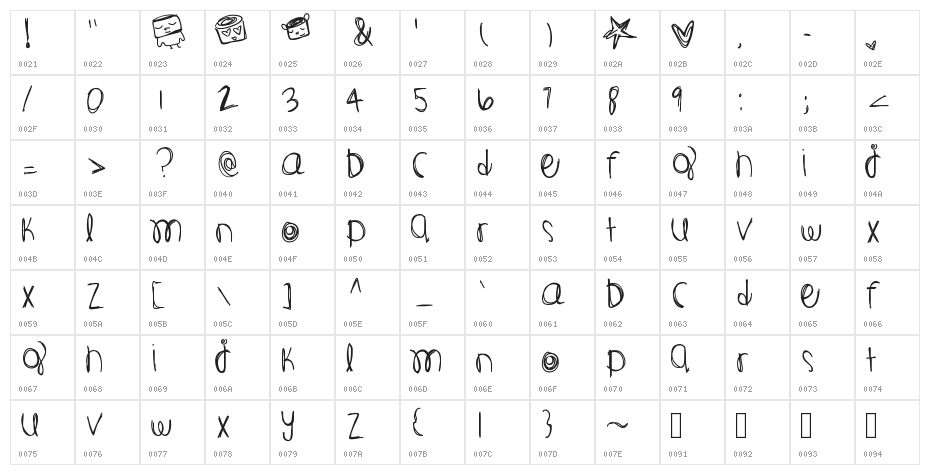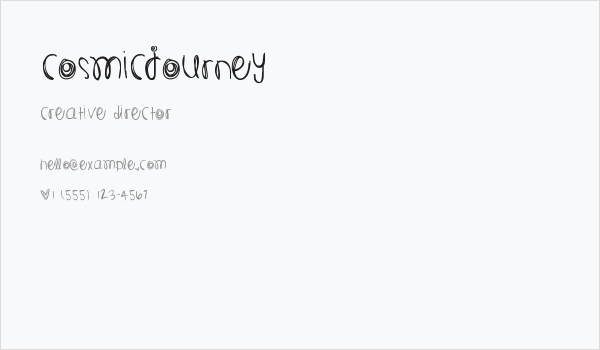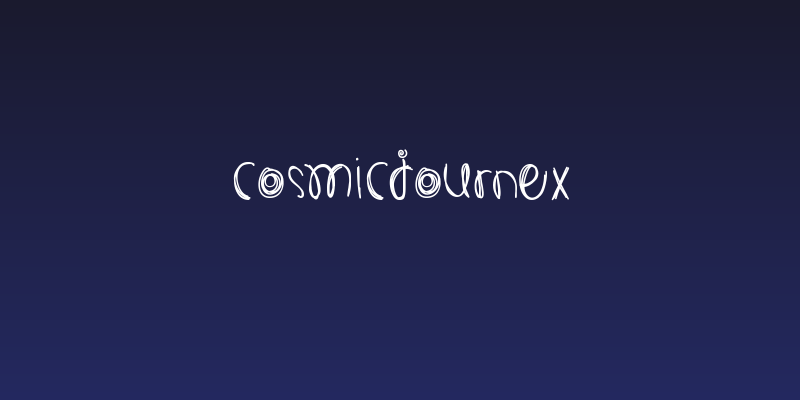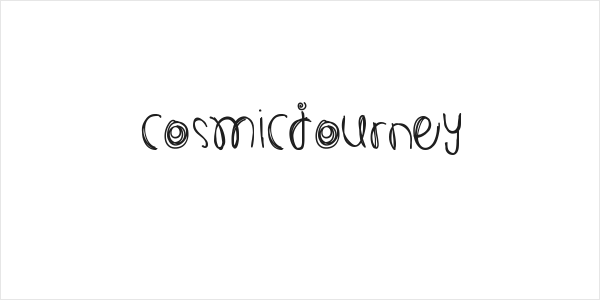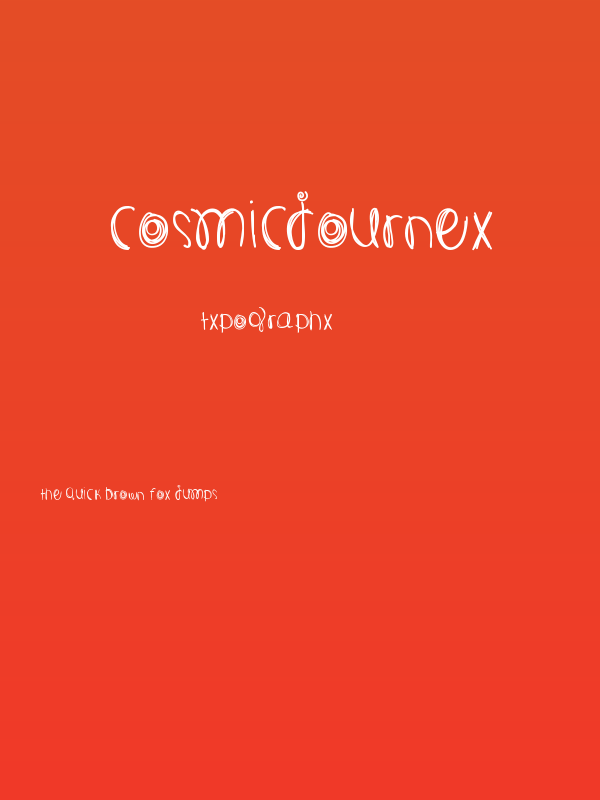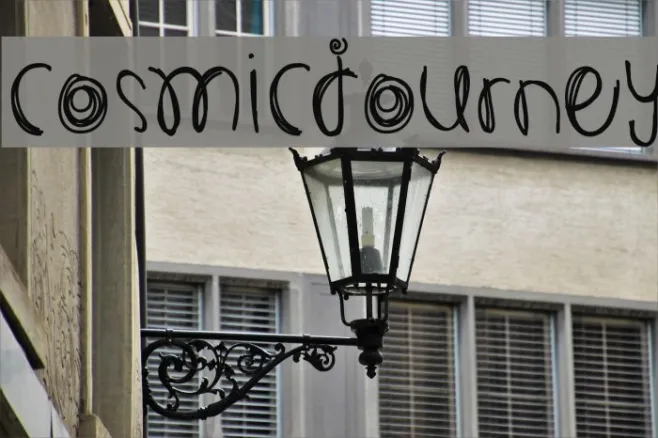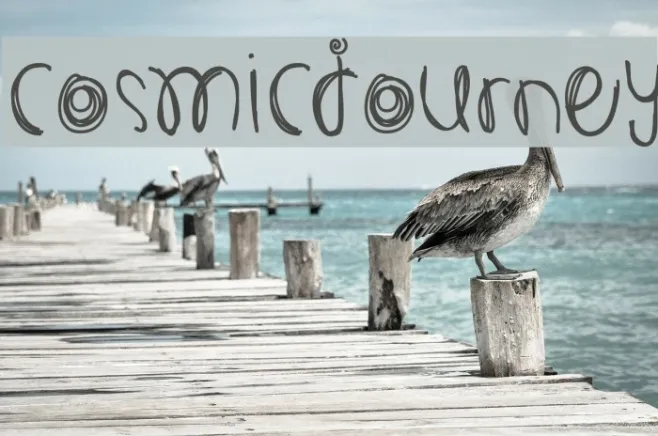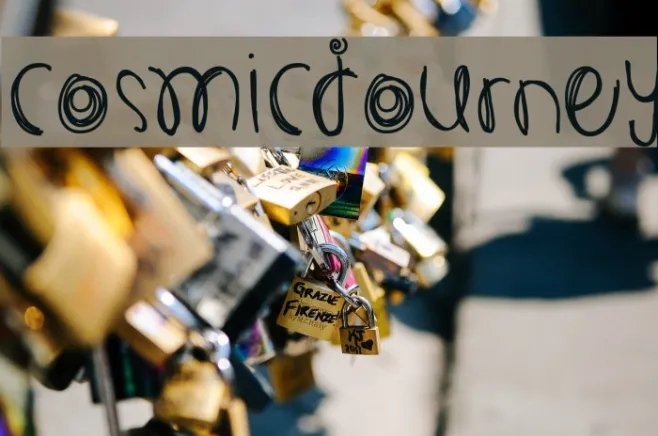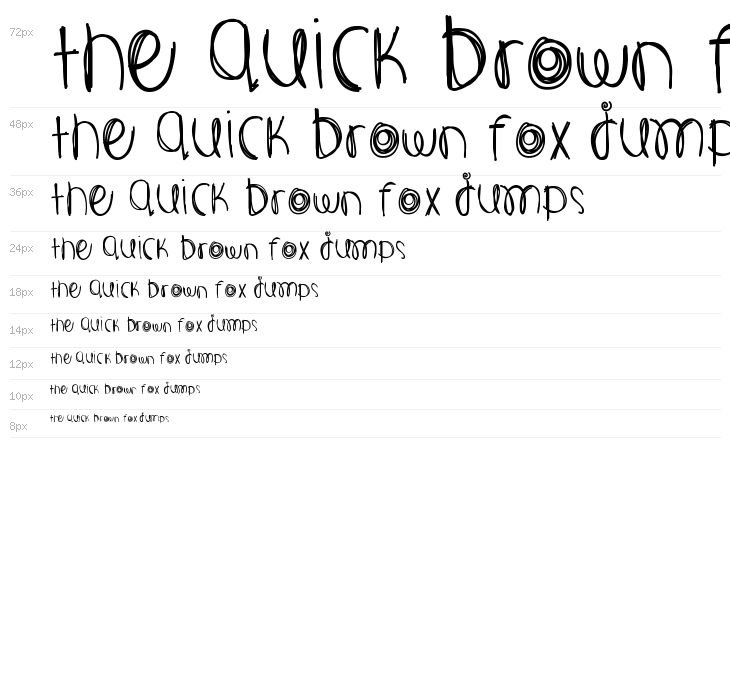
cosmicJourney Font
cosmicJourney Description
This playful and whimsical font features a hand-drawn style with a quirky and energetic character. Each letter is uniquely crafted with a sense of movement and spontaneity, giving it a lively and informal appearance. The strokes are uneven, adding to its charm and making it ideal for creative projects. The font includes both uppercase and lowercase letters, numbers, and a selection of special characters, all maintaining the same lively aesthetic. Its distinctive style makes it perfect for projects that require a fun and engaging look.
| Proposed Projects | Ideal for children's books, playful branding, greeting cards, and creative posters. |